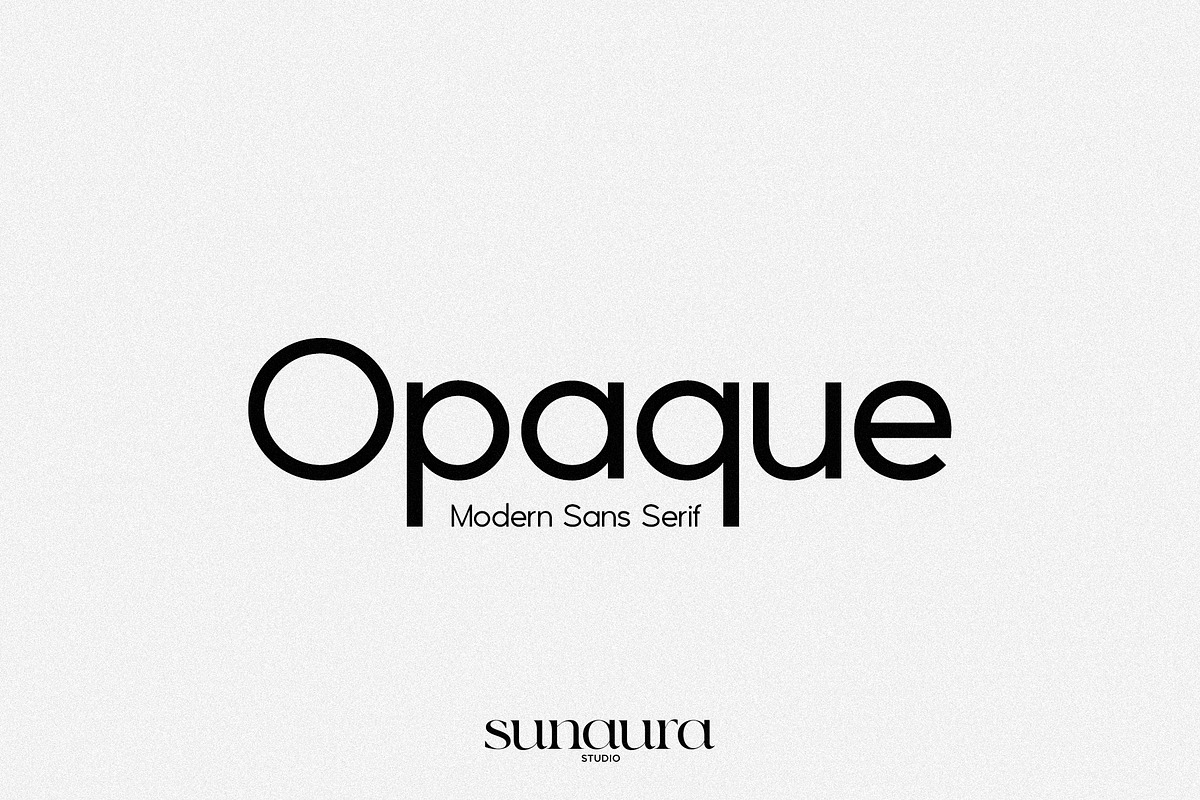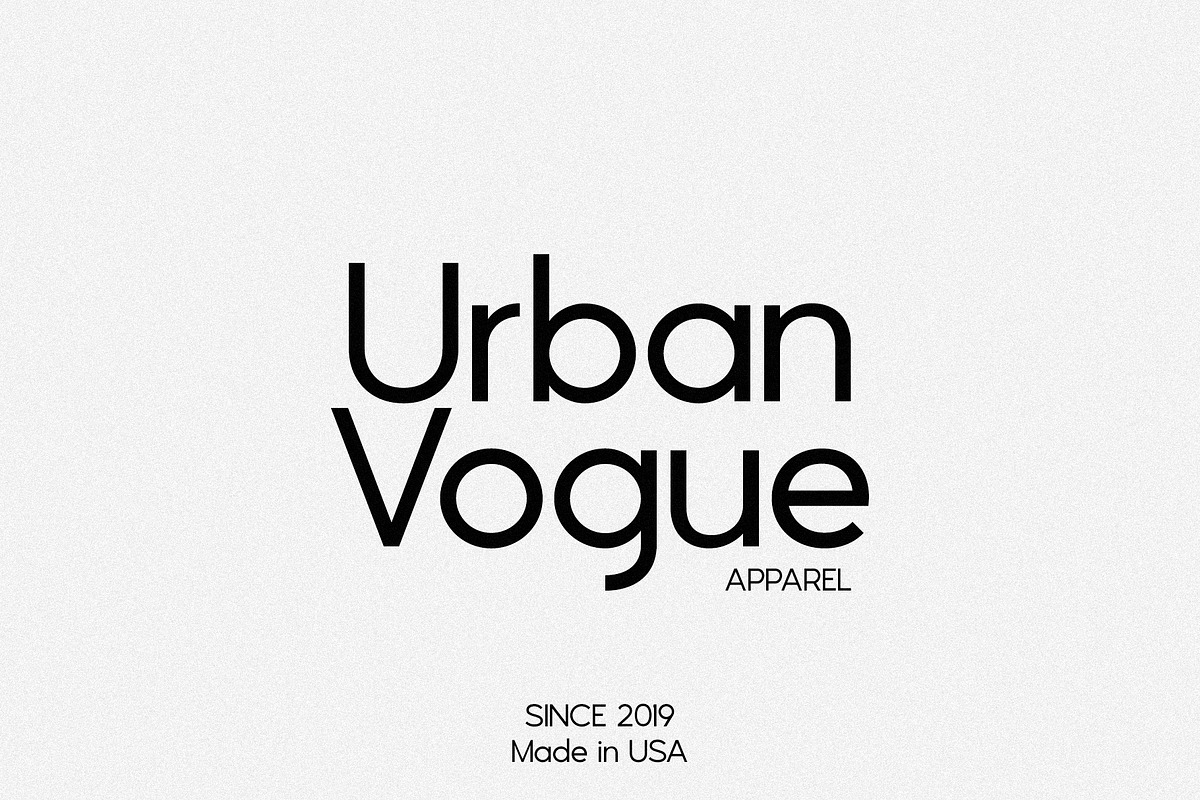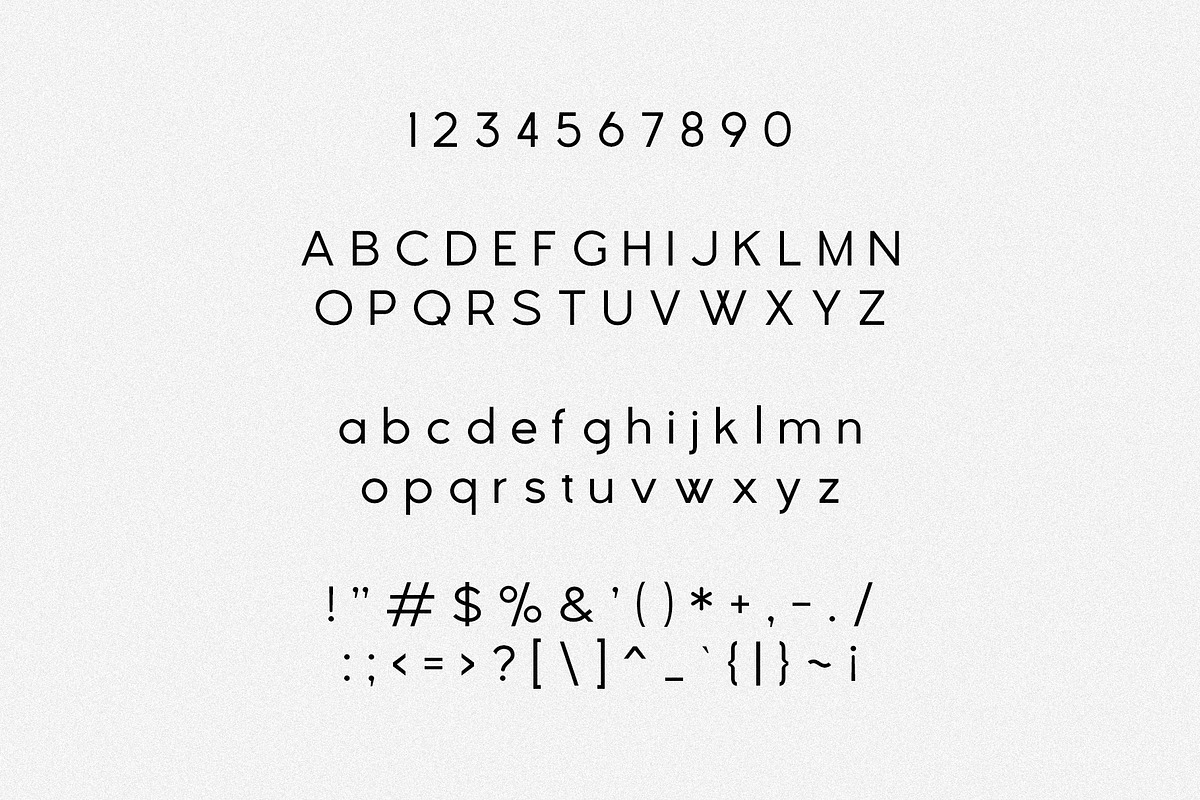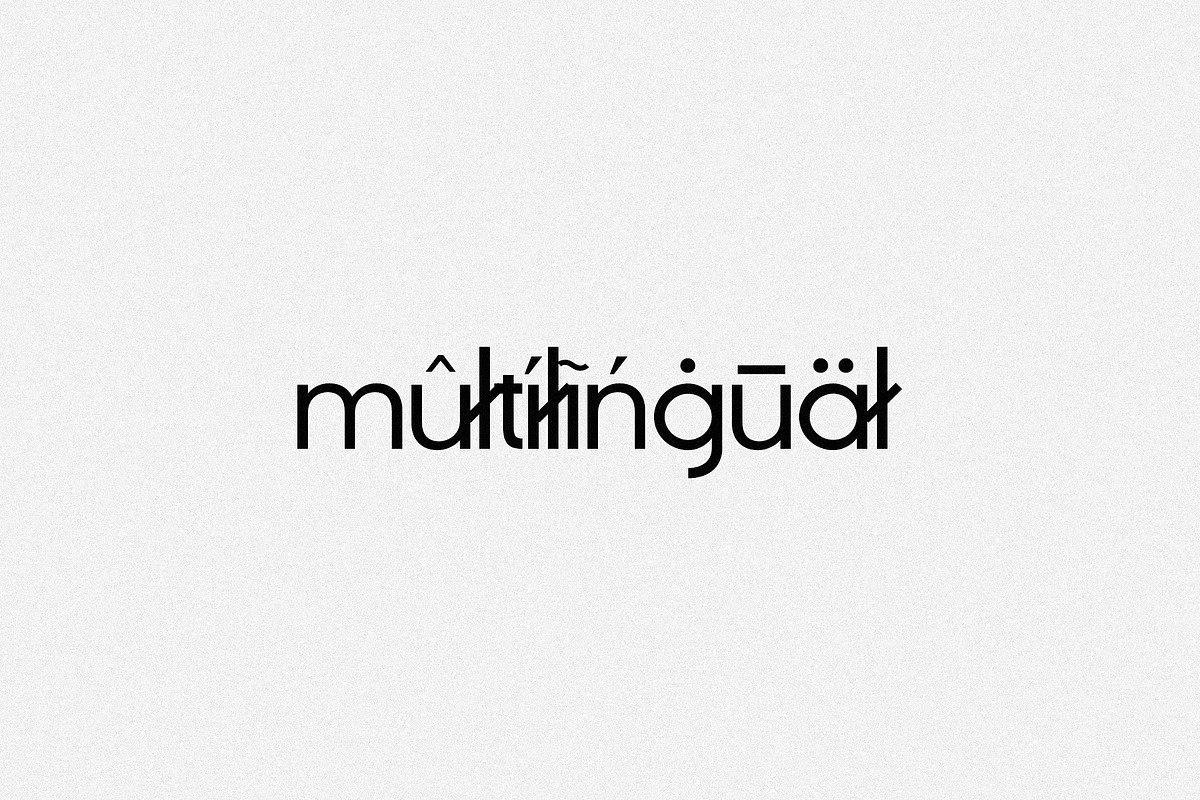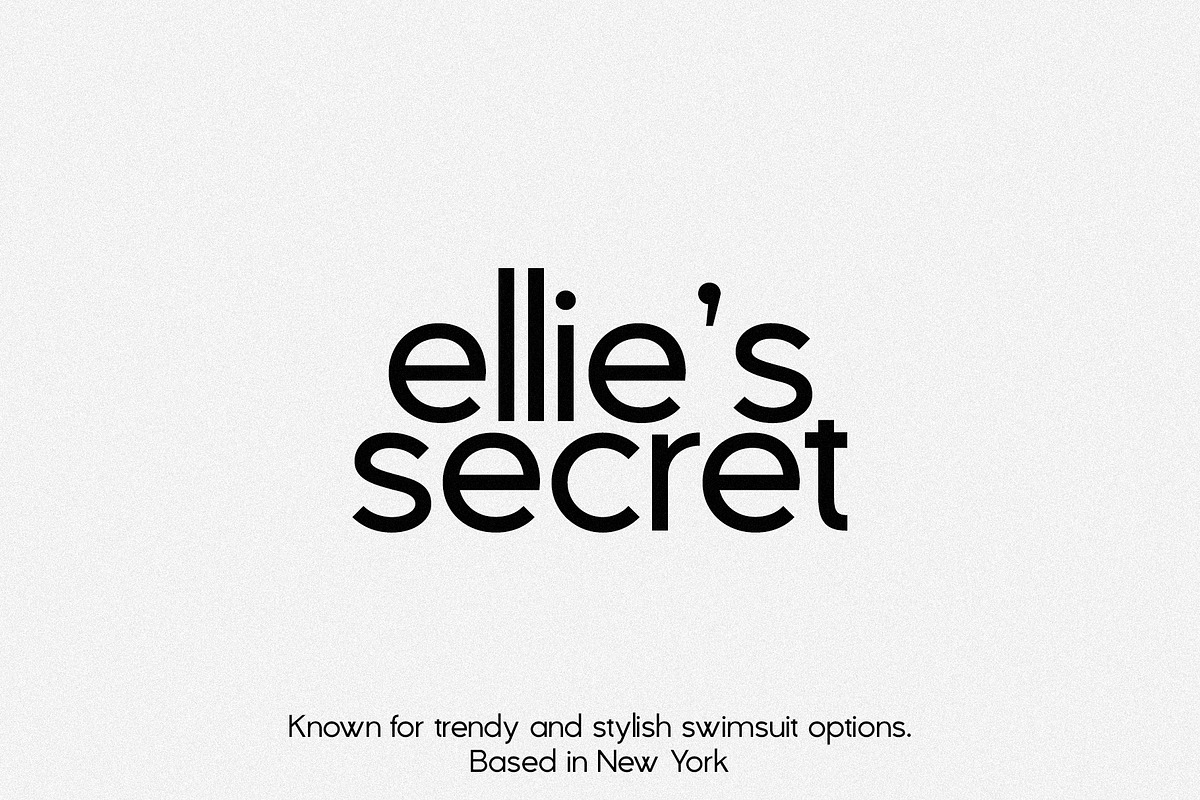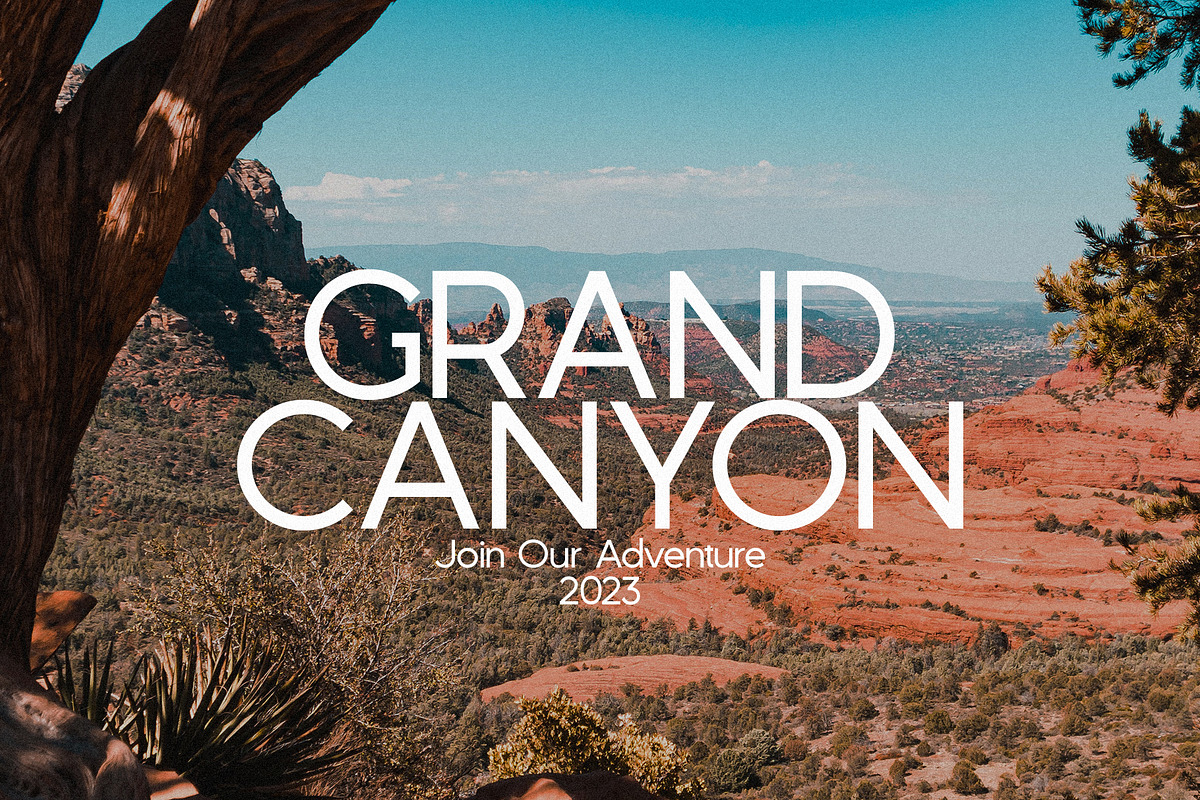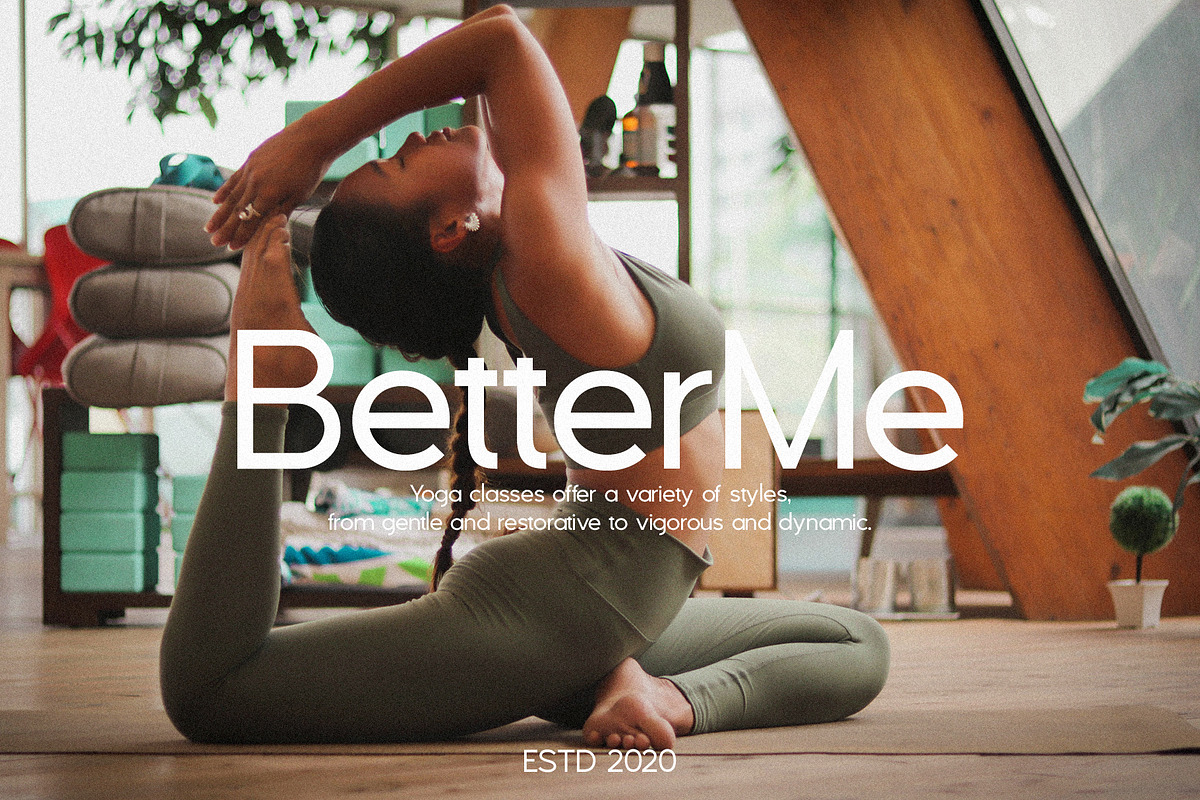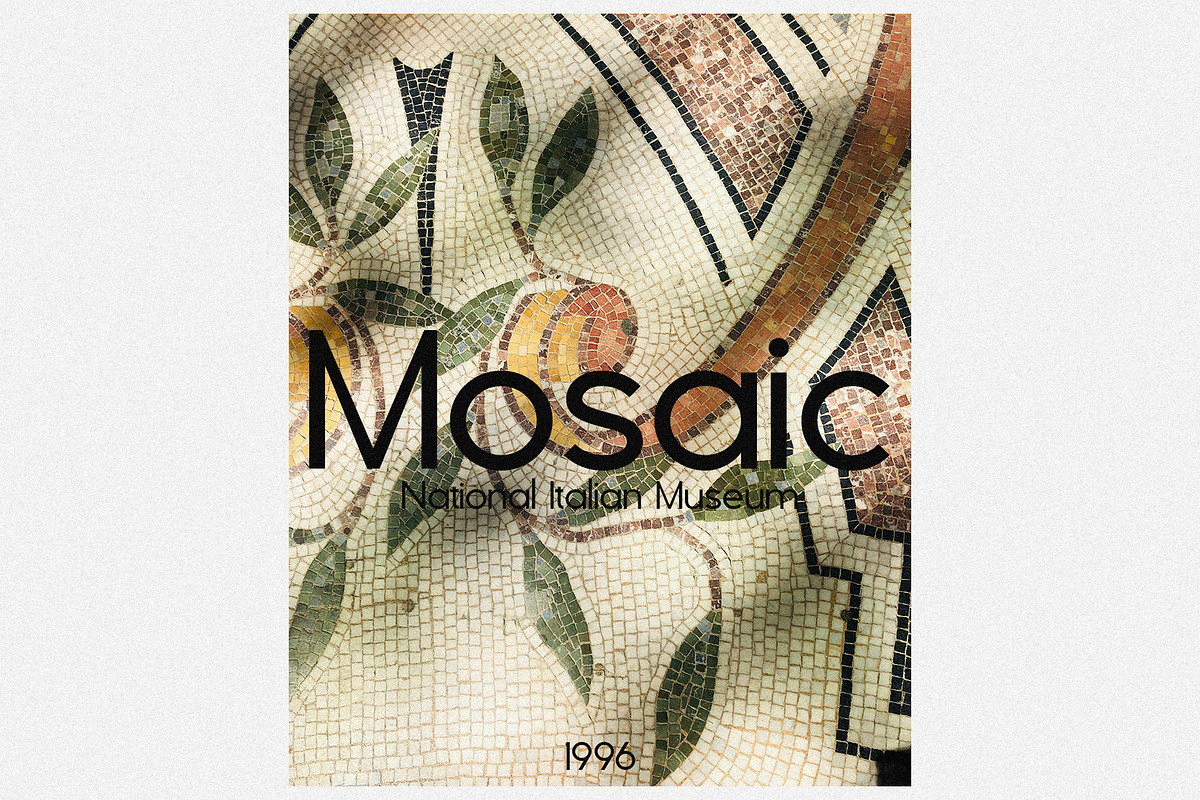
Opaque - Modern Sans Serif
Opaque is a sleek and contemporary sans serif font that exudes a sense of modernity and sophistication. With clean lines and a minimalist design, Opaque is perfect for a wide range of design projects, from branding to editorial layouts. Its versatility and readability make it a popular choice for both print and digital applications. Whether you're looking to create a professional website or design eye-catching marketing materials, Opaque is sure to elevate your project with its timeless appeal. Opaque features multilingual support, over 250+ glyphs, uppercase & lowercase letters, numbers & symbols.